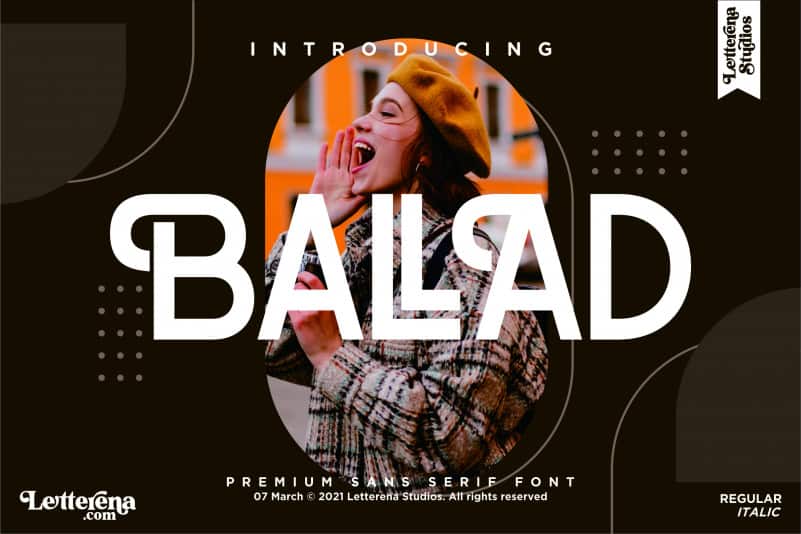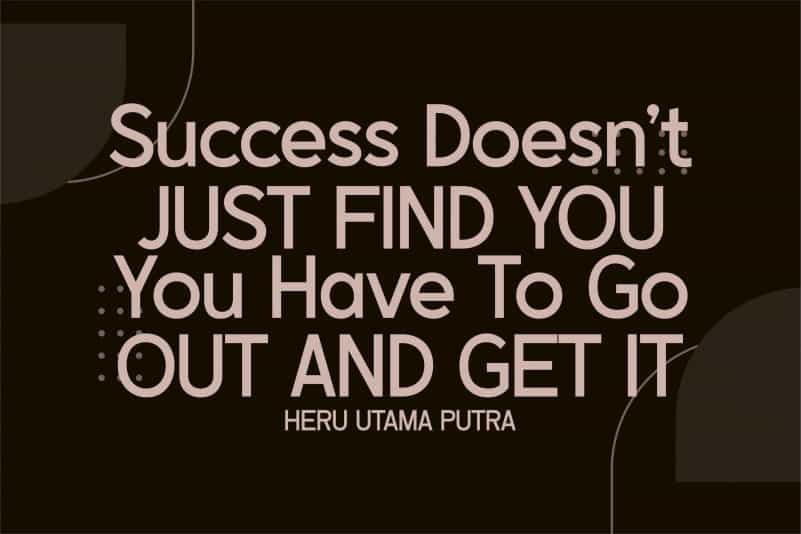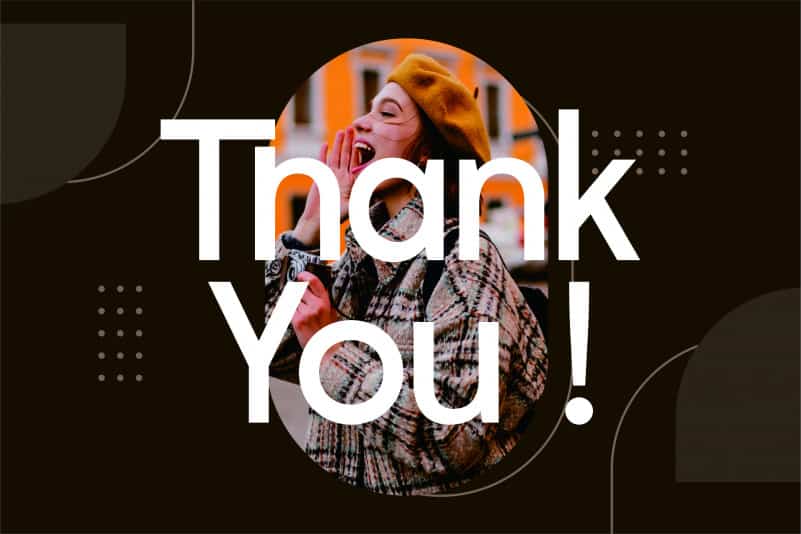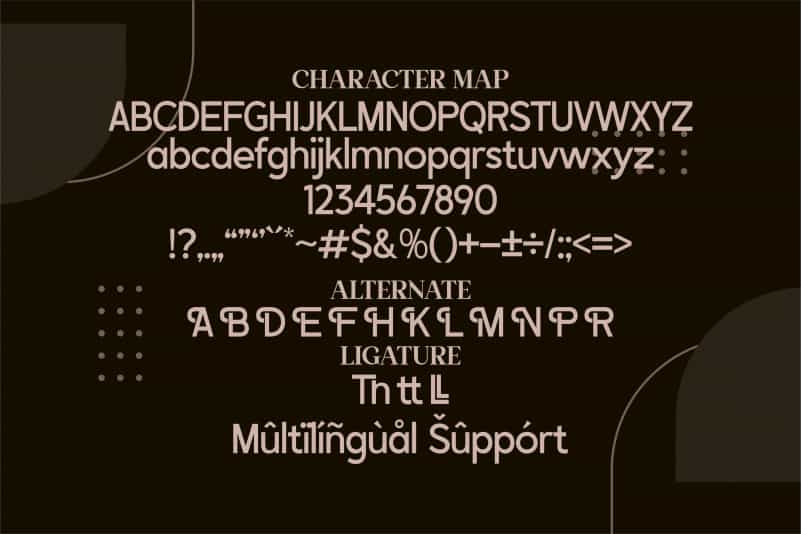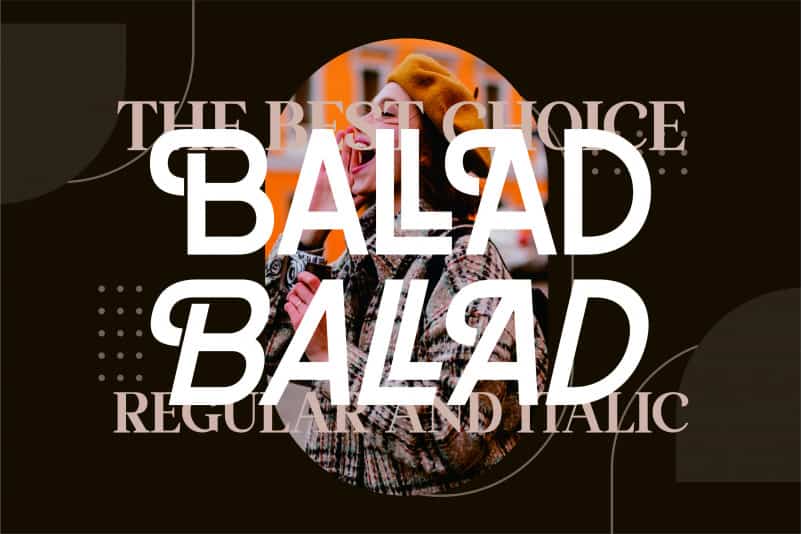
BALLAD Font
BALLAD Sans Serif Font, from Letterena, is a stylish sans serif font, suitable for any projects such as: logos, branding projects, homeware designs, product packaging, mugs, quotes, posters, shopping bags, t-shirts, book covers, name card, invitation cards, greeting cards, label, photography, watermark, special events, and all your other luxury and beautiful projects that need a Luxury Sans serif taste.